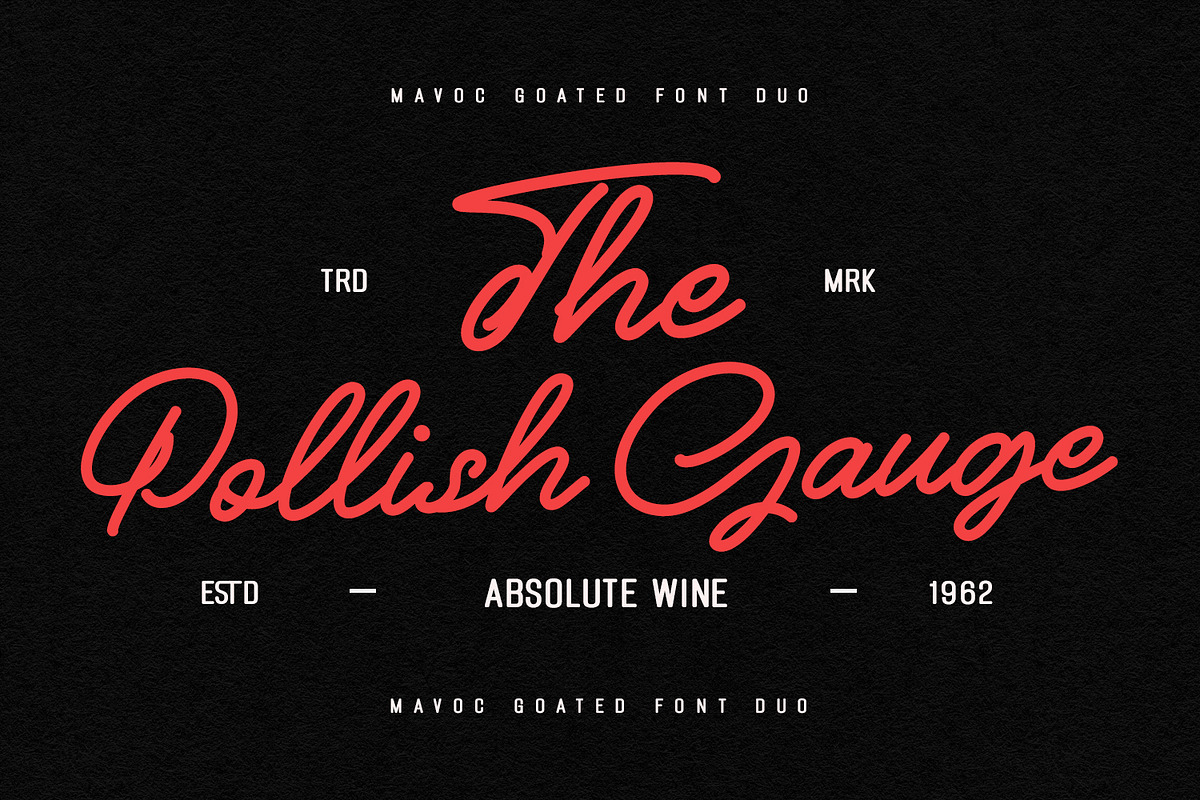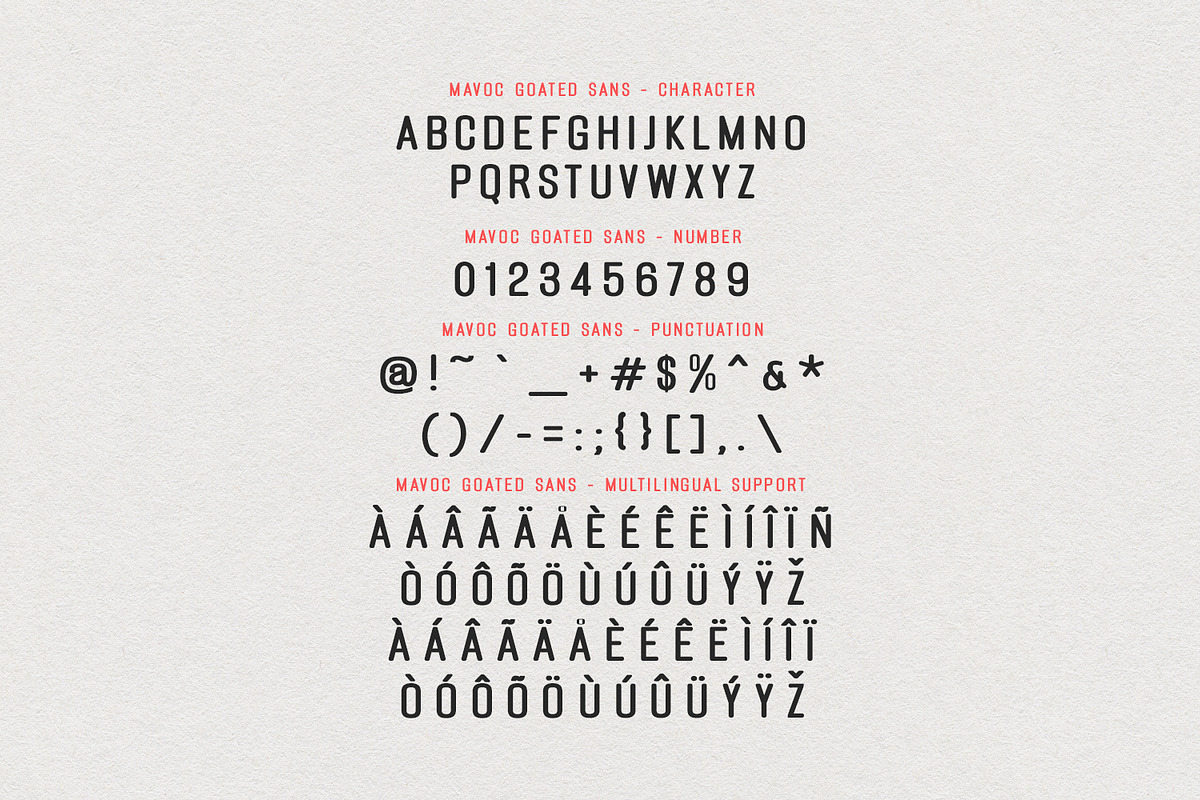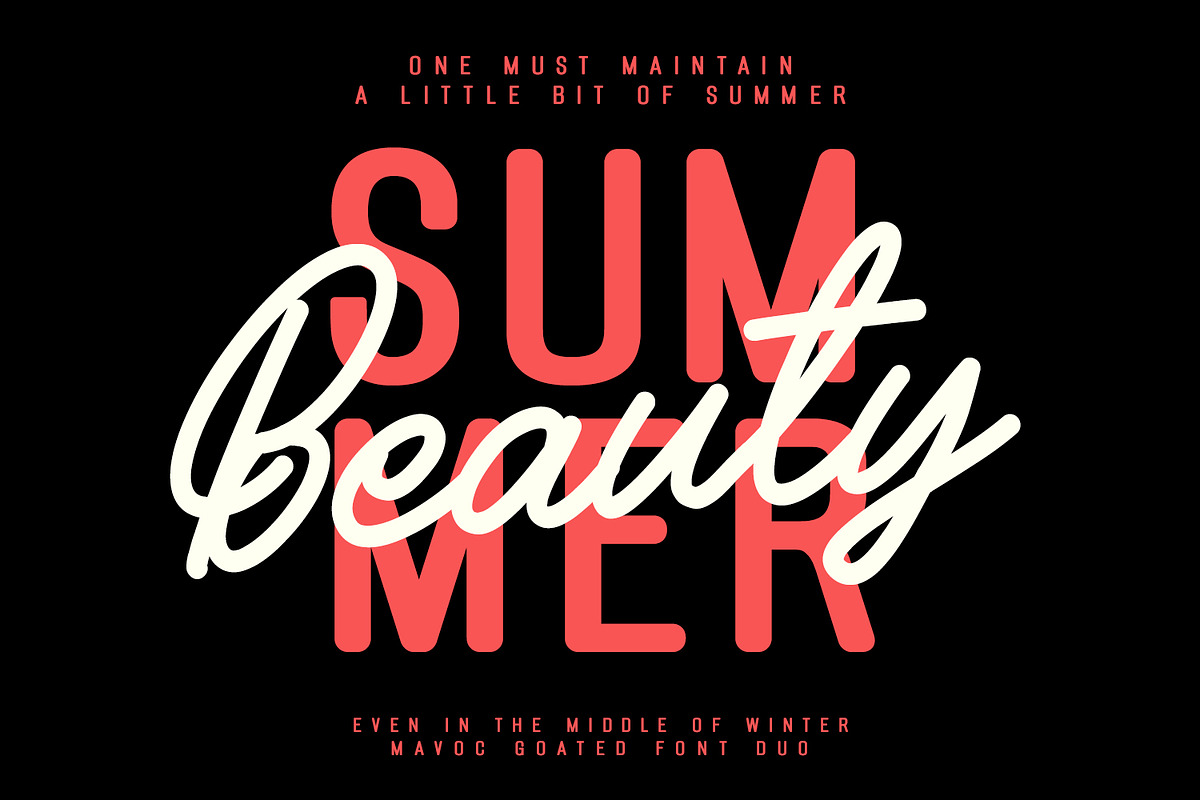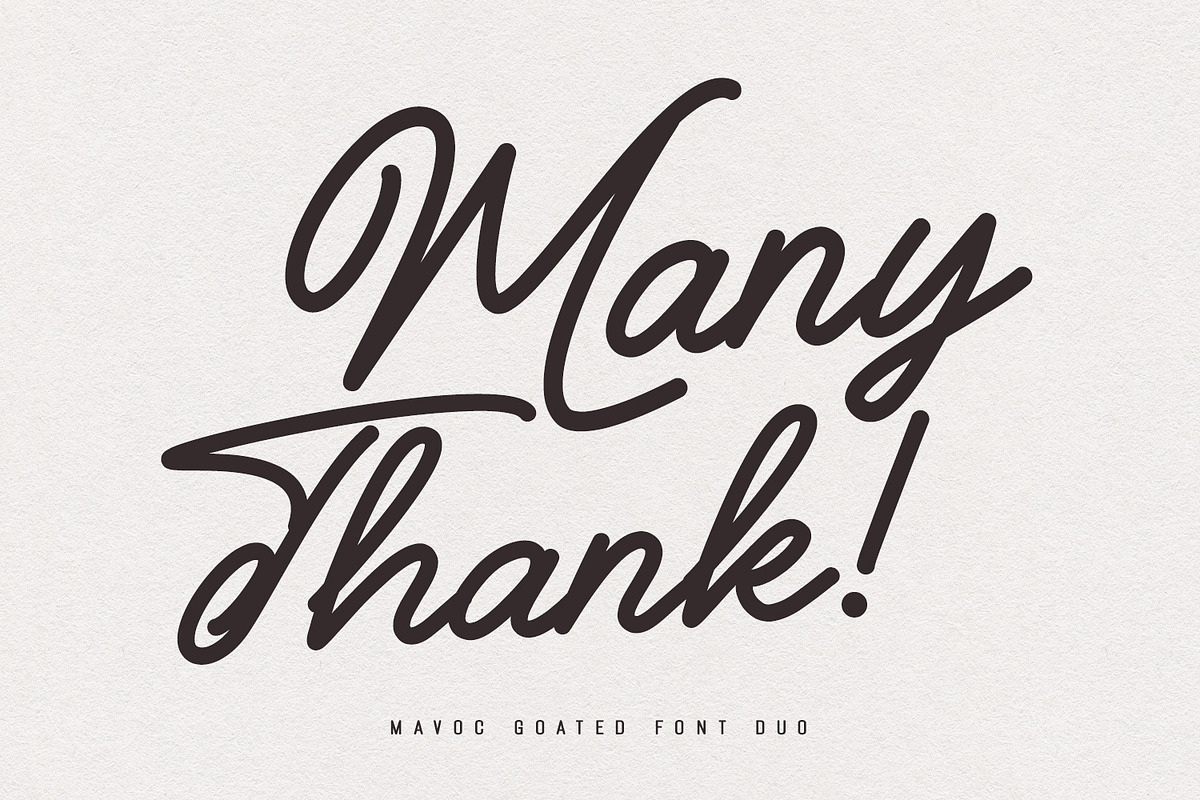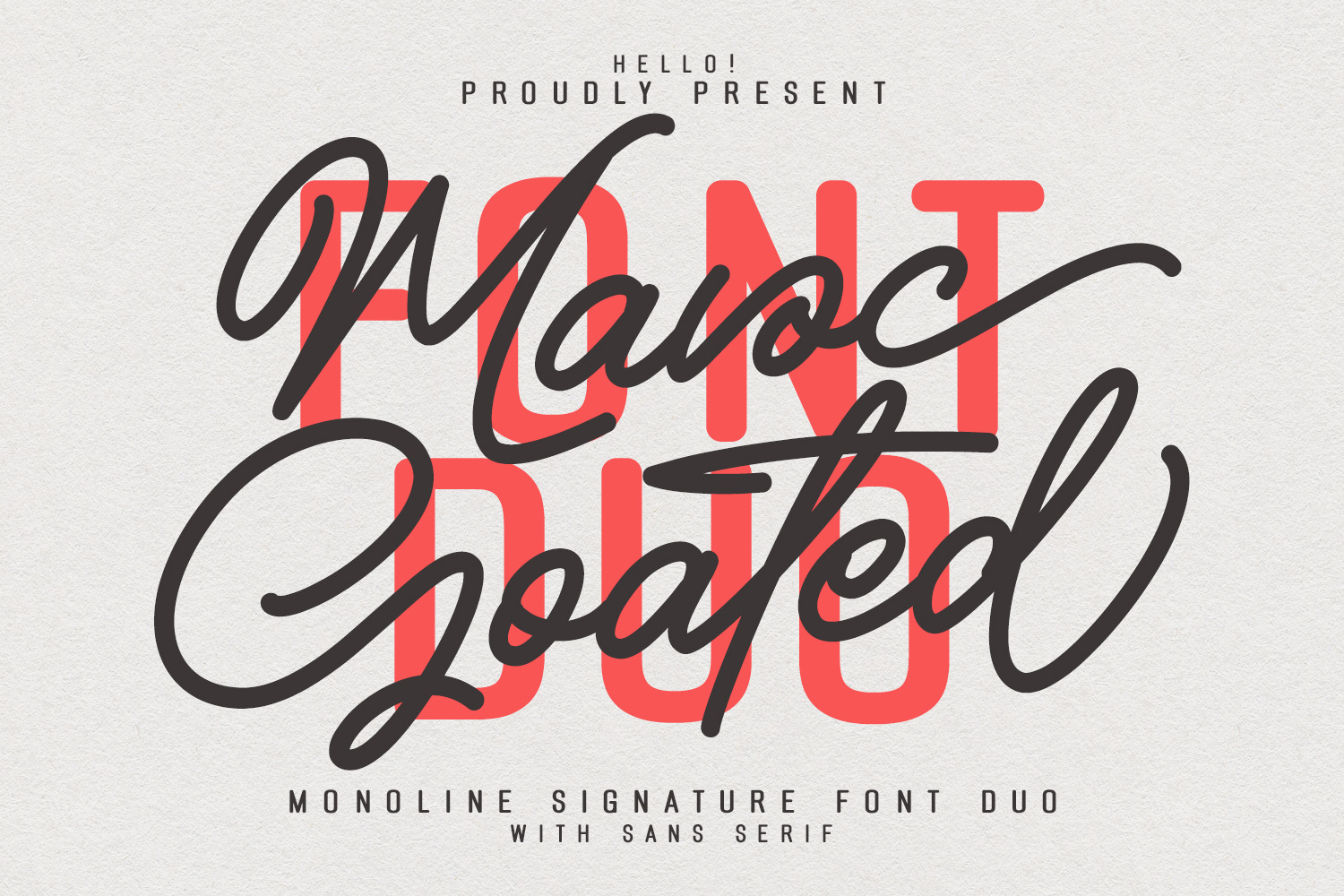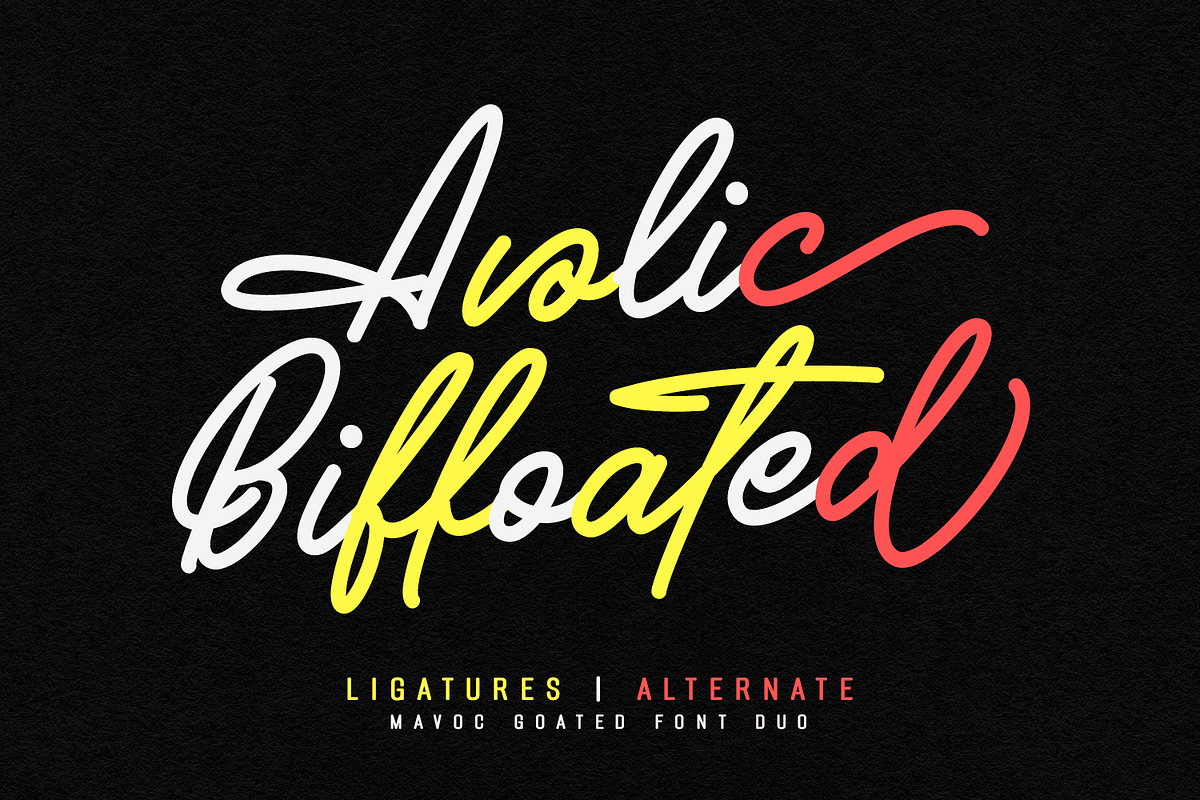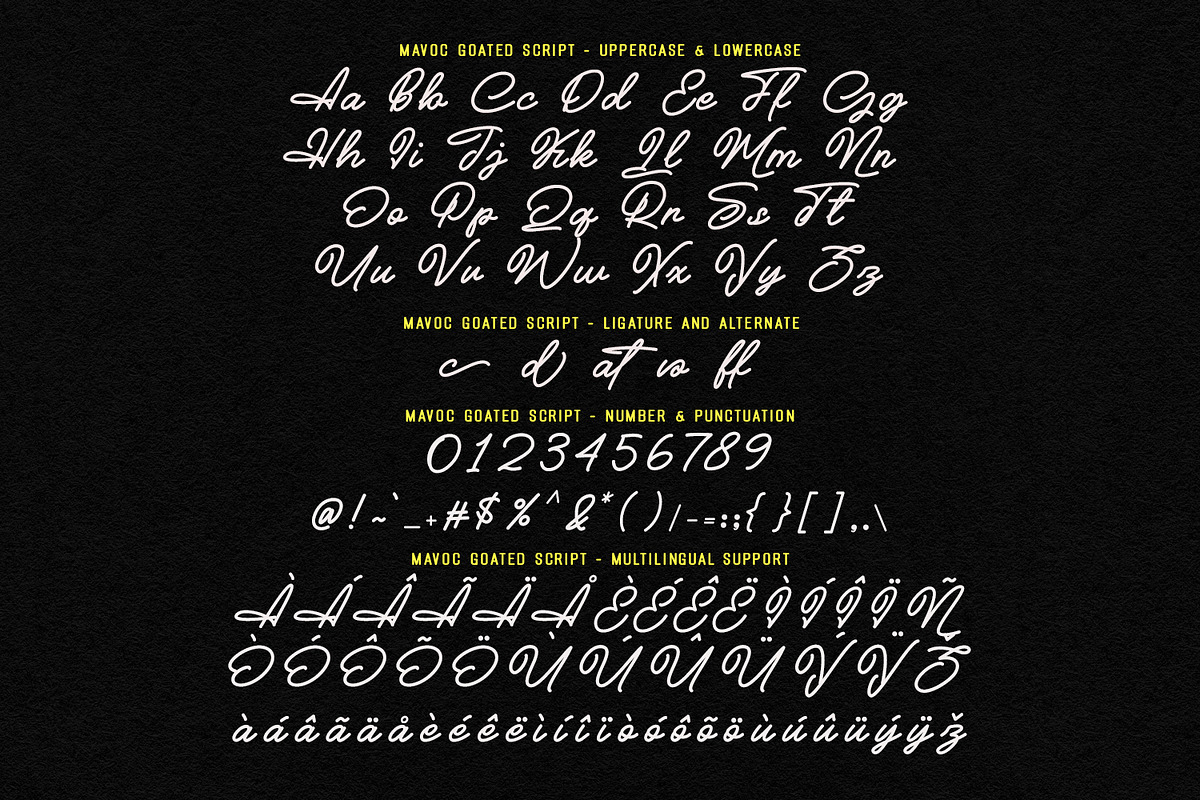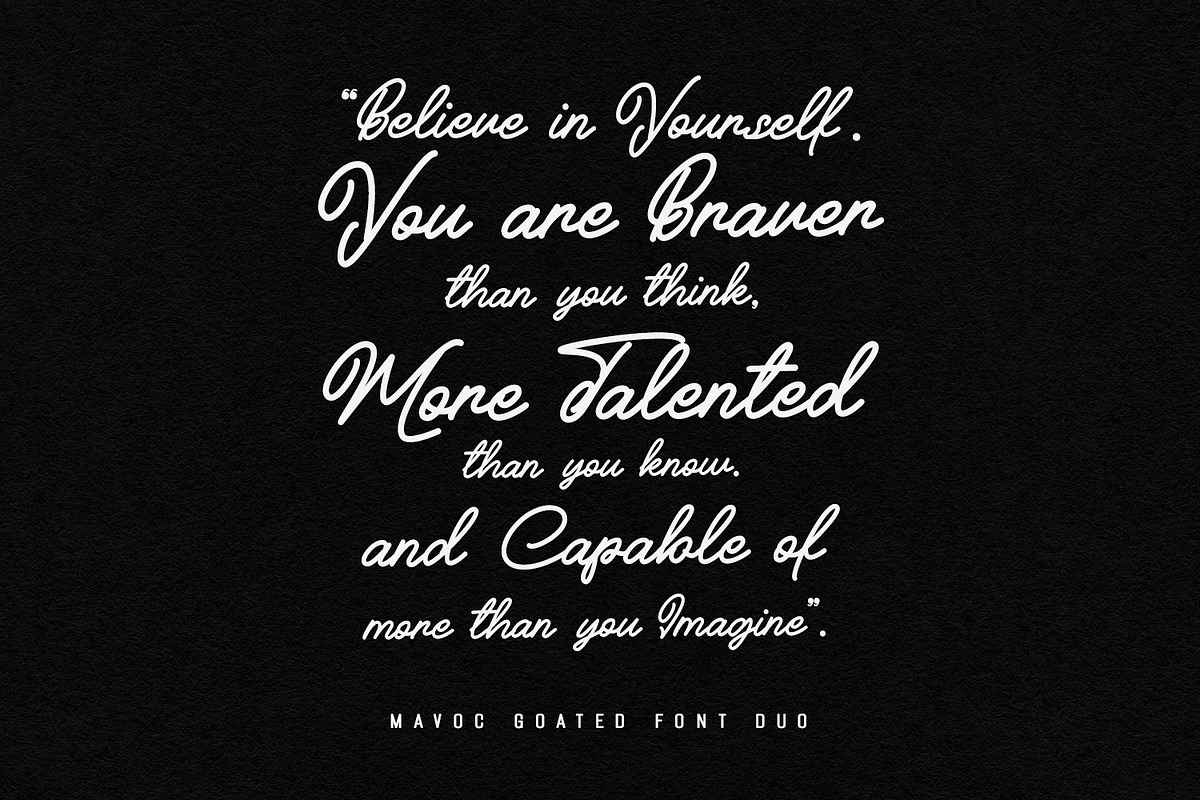
Mavoc Goated Script Sans Font Duo
Give your designs an authentic brush handcrafted feel. “Mavoc Goated Script Sans Font Duo” is perfectly suited to signature, stationery, logo, typography quotes, website header, branding and more.